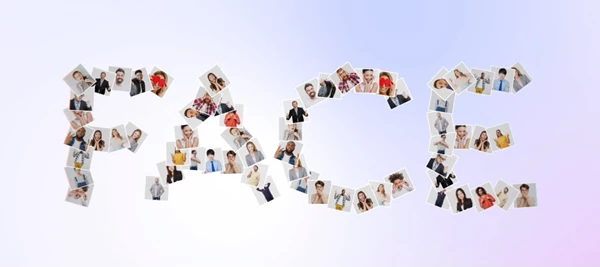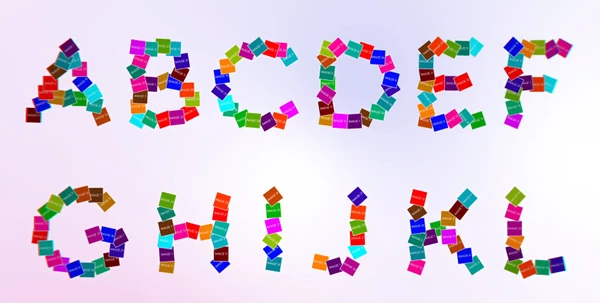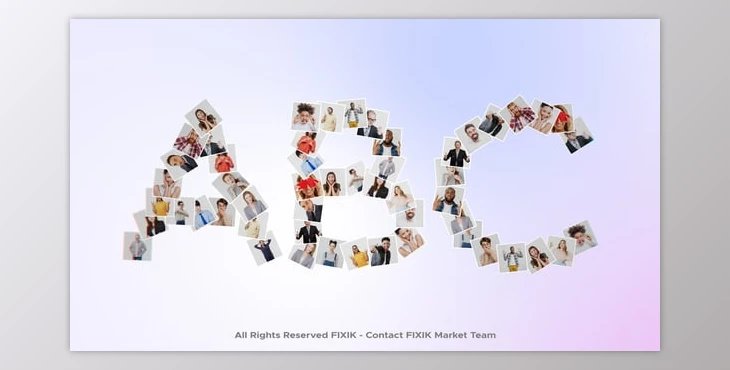
Collage Typeface | After Effects:
The Collage Typeface is a unique animated typeface exclusively for After Effects. It's perfect for Party Titles, Birthday Titles, Lower Thirds, and Intros. All renders are in high resolution (2000×2000), so you can blow up your titles/trailers with ease.
- The alphabet A-Z
- Numbers